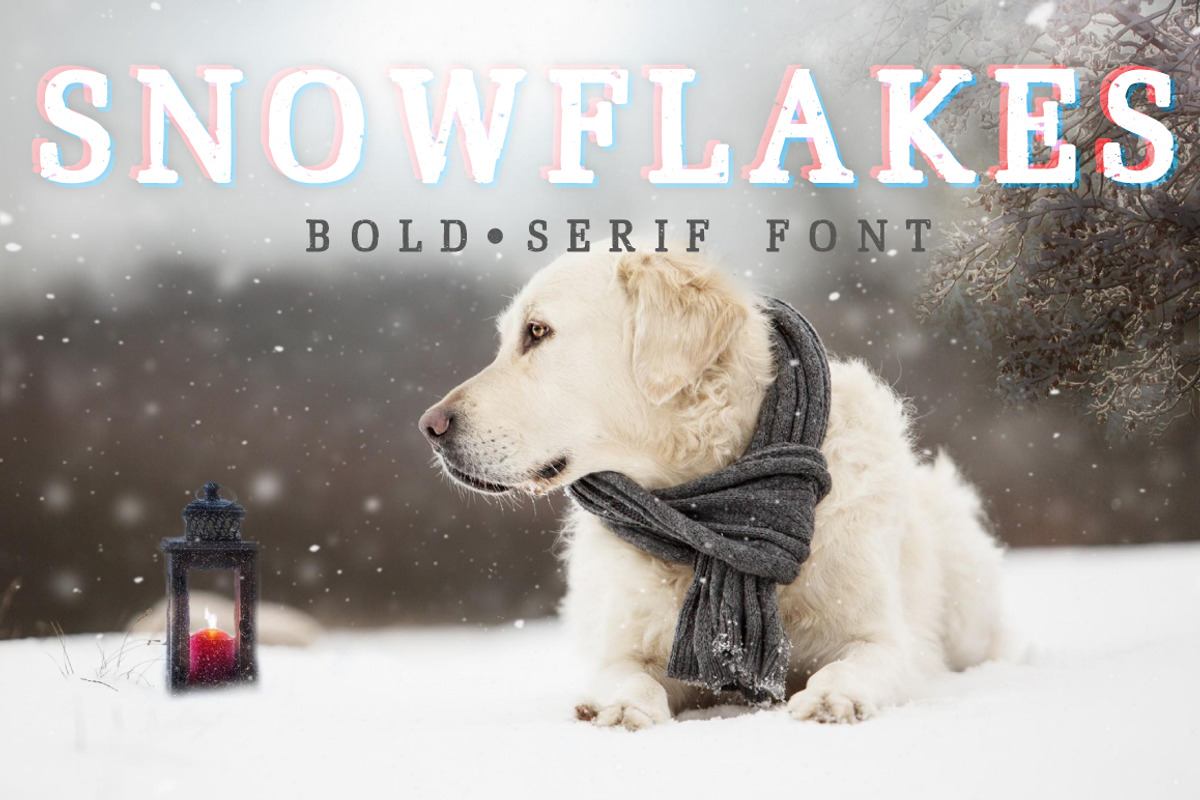
Snowflake font Free Download
Snowflake Font Free Download
You must purchase this font for commercial use. However, you can download Snowflake Font Free Download for testing purposes. Snowflake is a beautiful and elegant winter-themed font designed to evoke the calm and beauty of the season. With its delicate, snow-inspired design elements, this font is perfect for holiday-themed projects, Christmas cards, winter promotions, event invitations, and more.
The clean, frosty appearance of Snowflake makes it ideal for creating festive and seasonal designs that need a touch of winter charm. Whether you're working on a holiday campaign, designing a cozy greeting card, or adding a wintery touch to a product label, this font will bring warmth and elegance to your typography.